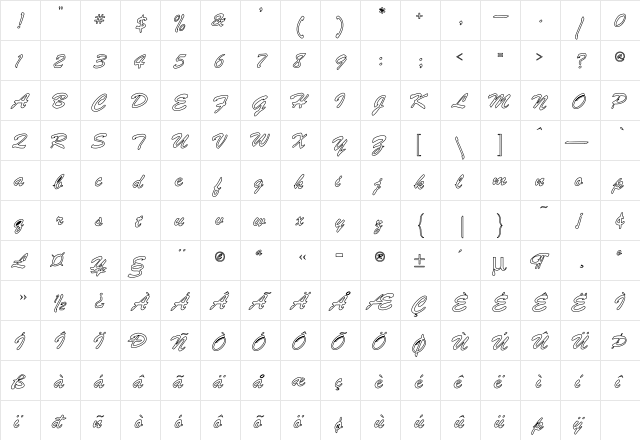
Brush Ho Regular Font Preview
Brush Ho Regular
Design Context for Brush Ho Typeface
Brush Ho brings a calligraphic fluidity to the page — its connecting strokes and expressive curves give it an unmistakably human quality.
Font Pairing: Combine Brush Ho with a simple geometric sans for maximum contrast — the tension between flowing curves and clean structure is a classic typographic pairing.
Pro Tip: Pair Brush Ho with a clean sans-serif for supporting text. The contrast between fluid script and geometric structure creates an elegant typographic hierarchy.